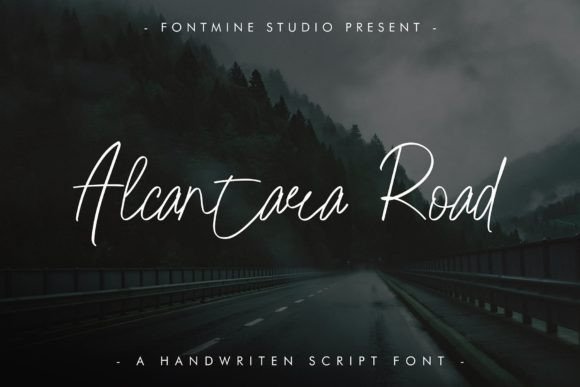
Discover the Elegance of Alcantara Road Font
Have you ever been in the middle of a design project, and suddenly, you’re stuck on finding the perfect font? I recall a recent experience where I was working on a modern logo for a client, and I just couldn’t seem to find a script font that conveyed the right amount of elegance and freshness. That’s when I stumbled upon Alcantara Road Font, and it completely transformed my design.
A Personal Review of Alcantara Road Font
Alcantara Road Font is a modern, fresh script with a handwritten and script style that gives it an elegant, sweet, natural, and stylish feel. This font is perfect for any project that needs a touch of handwriting taste. Here’s what I love about it:
- ✨ Elegant and sophisticated look
- ✅ Fresh and modern feel
- 💫 Perfect for logos, branding, and advertising
- 📸 Great for Instagram quotes, photography, and social media posts
While Alcantara Road Font is amazing, it’s not without its quirks. Here are a few things to keep in mind:
- ⚠️ Limited availability of certain characters
- 🤔 May require manual kerning for optimal results
Alcantara Road Font comes with a range of OpenType features and glyphs that can enhance your designs. Here are a few tips on how to access these features:
The Story Behind Alcantara Road Font
Alcantara Road Font was designed with the intention of creating a modern, fresh script font that captures the elegance and sophistication of handwritten writing. The designer aimed to create a font that’s perfect for a wide range of design projects, from logos and branding to advertising and social media posts.
- Q: What type of projects is Alcantara Road Font best suited for?
- A: Alcantara Road Font is perfect for modern logos, branding, advertising, social media posts, and any project that needs a touch of handwriting taste.